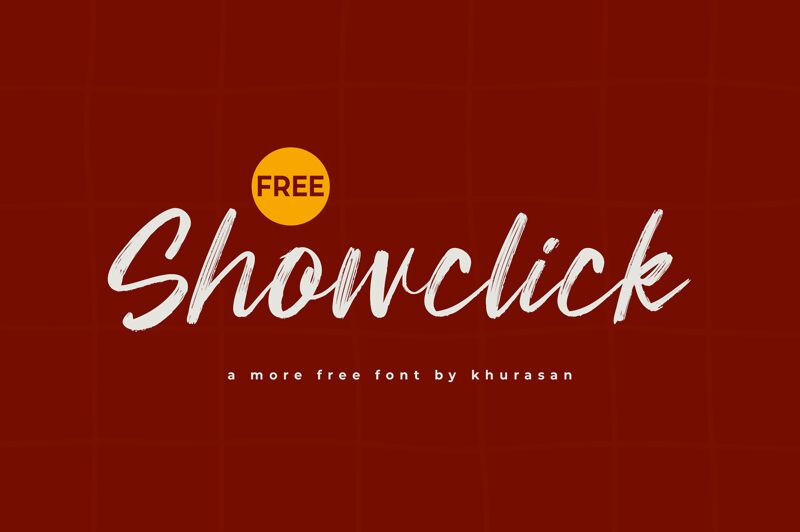
Showclick font family by Khurasan™ includes 2 font styles with an elegant handwritten style. This free font family has an energetic informal appearance that adds a modern dynamic feel to every design in which it’s used. It’s an expressive font family with a casual feel but looks great when used in professional design projects.
Showclick is suitable for creative design projects that require a font that communicates a warm tone. It works well in title design, branding, books and notebooks, packaging, magazine cover design, posters, web design, and mobile interface design. It also works in social media posts and environmental graphics among various other design projects.